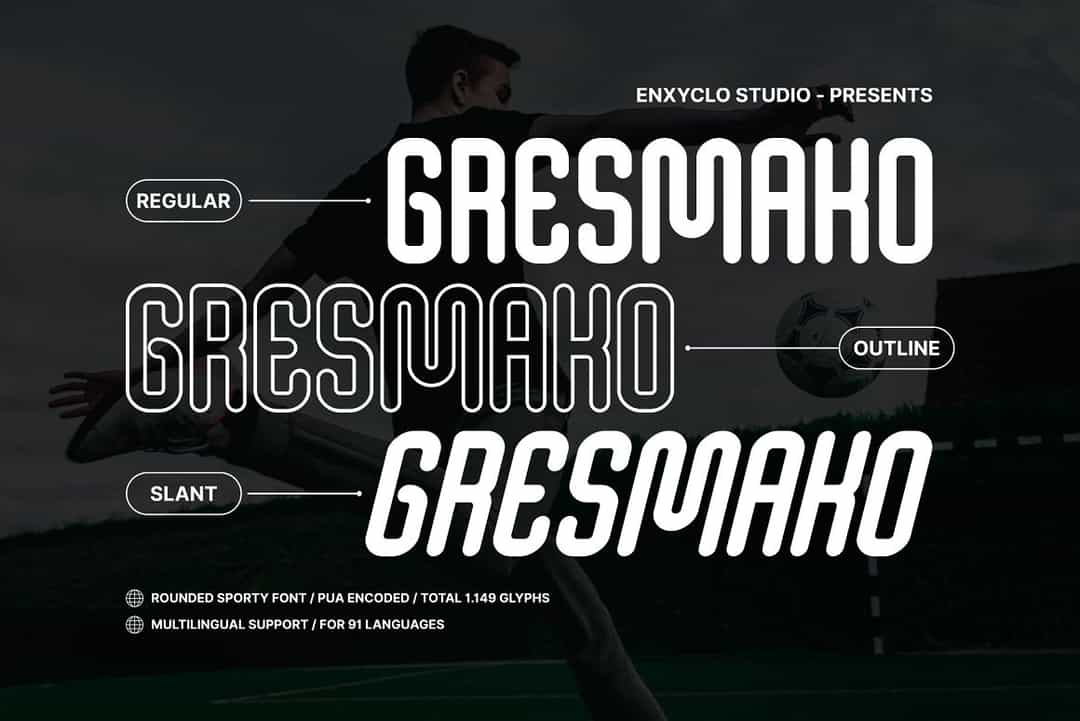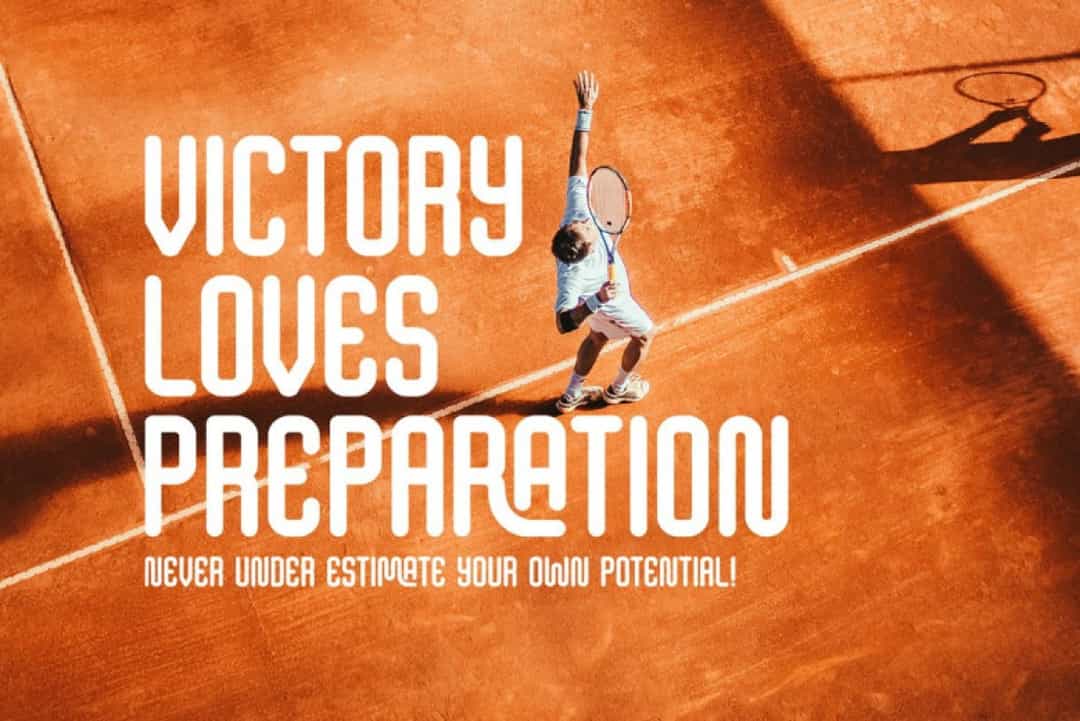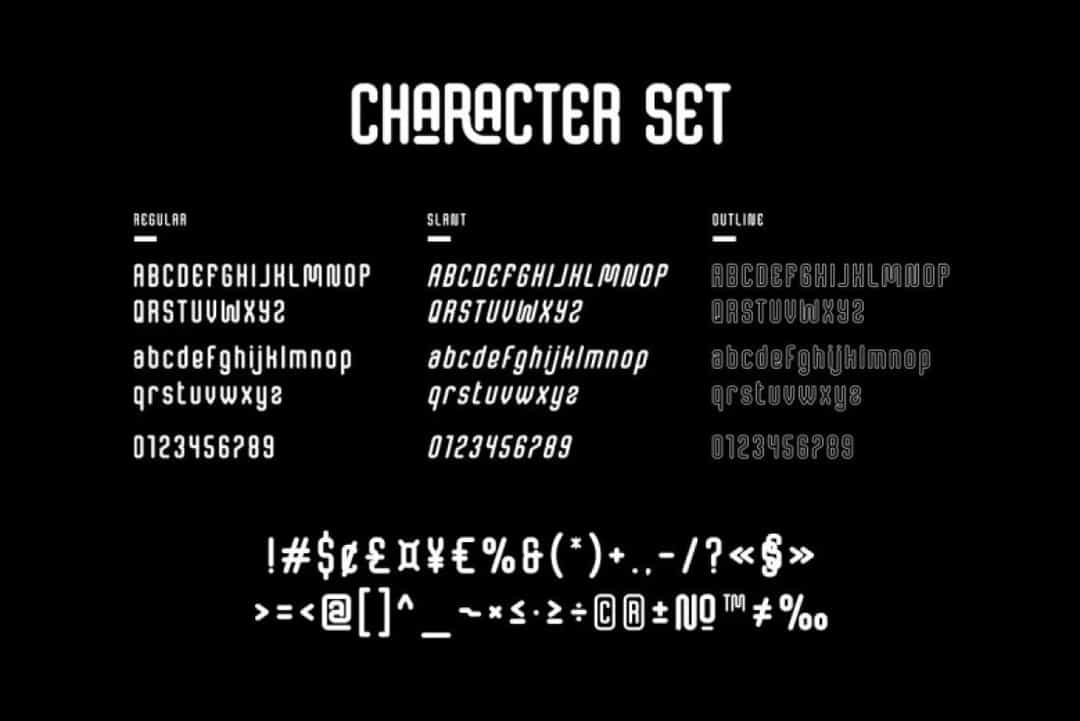
Gresmako can be described as a sporty yet rounded Sans Serif Display font designed for use at larger size points while remaining legible at smaller points sizes. By choosing this font you can express more creativity in your designs with its artistic curves and round shapes.